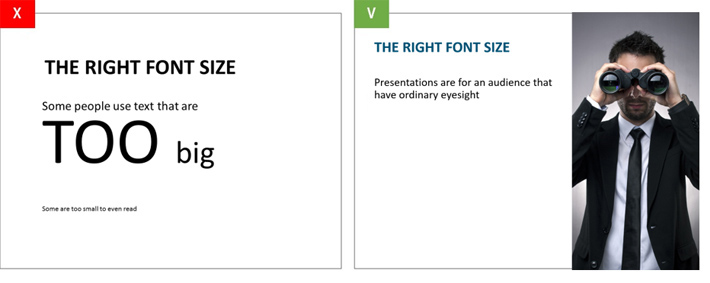
Simple What Font Size Is Best For Powerpoint Presentations For Logo Design, To change font size in powerpoint, first, select the text. The font type and the font size.
Hence, it can be used for both headings or text. Then, click on the “font size dropdown” option from the “font” group on the “home” tab in powerpoint. The next best font for powerpoint is another creation of gleb guralnyk. It’s perfect for designing powerpoint slides for business and professional presentations.
Last Minute PowerPoint problems that nobody wants Hence, it can be used for both headings or text.
What is the best font and font size for powerpoint presentation? The style is both geometric while featuring bubbly and. Best sans serif fonts for powerpoint presentations futura. What is a good font size for powerpoint presentations?
Hence, it can be used for both headings or text. Addington is a family of serif fonts that feature a very formal design. Best sans serif fonts for powerpoint presentations futura. ( image source) oozing style, this elegant font is ideal for powerpoint presentations. Font Types and Sizes in PowerPoint 2016 for Windows.
Vintage look and unusual serifs are the latest trends in designer typography. Whole books have been written about typography, so asking someone to answer this on quora is an impossible task. The font should be large enough to be easily read from the very back. The font comes with 7 different font weights including roman and italic sets. Choosing the Best Font for PowerPoint 10 Tips & Examples Design Shack.
As someone who used to charge a lot of. Whiskey label + design elements font. Roboto is a versatile font with different purposes. The first one is easy: Some Data on the Current Use of PowerPoint Font Sizes Die Computermaler.
Vintage look and unusual serifs are the latest trends in designer typography. Check embed fonts in the file in the preserve fidelity when sharing this presentation: Popular serifs are times new roman, century, bookman, lucida, garamond, and more. Many powerpoint users will ask, what is a good font size for powerpoint presentations? in reality, you should vary your font size based on the content that you're presenting. PPT Minimum Font Size Slide PowerPoint Presentation, free download.
However, you are better off choosing standard fonts, such as calibri, tahoma, gill sans and garamond, or even times new roman and. When it comes to font, there are two important aspects: Believe outside the slide has a terrific font cheat sheet for a number of various screen dimensions. Six good presentation fonts for your brand to explore. Slide Presentation Guidelines.
As someone who used to charge a lot of. However, you are better off choosing standard fonts, such as calibri, tahoma, gill sans, garamond, or even times new roman or helvetica. It’s perfect for designing powerpoint slides for business and professional presentations. The font includes basic punctuation, an illustration of icarus, frames, texture, and ribbons. What are the layout and the suggested font sizes for header.
There are several fonts you can use for your presentation. If bodoni fonts are just that bit too extreme, try bell mt instead. Popular serifs are times new roman, century, bookman, lucida, garamond, and more. Here are seven tips to help you find the best powerpoint fonts for your presentation: Best Resolution For PowerPoint Presentations • PresentationPoint.
The font comes with 7 different font weights including roman and italic sets. If bodoni fonts are just that bit too extreme, try bell mt instead. In the video below, our company founder and prezi expert russell, gives his thoughts on choosing the right font size. Many powerpoint users will ask, what is a good font size for powerpoint presentations? in reality, you should vary your font size based on the content that you're presenting. Font Size for Powerpoint Presentation Powerpoint Tip YouTube.
As someone who used to charge a lot of. The document should utilize recommended fonts, e.g., palatino, georgia, verdana, tahoma, arial, and helvetica. Click on file and then options. To change font size in powerpoint, first, select the text. Font Types and Sizes in PowerPoint 2016 for Mac.
Whiskey font has a vintage style. Best sans serif fonts for powerpoint presentations futura. They include arial, calibri, helvetica, verdana, lucida sans, tahoma, and century gothic. These fonts are more common and generally come installed with most programs, plus they look good and are easy to read. Last Minute PowerPoint problems that nobody wants.
The font type and the font size. 7 tips for choosing powerpoint fonts. In this blog we share six good presentation fonts that can take your deck to the next level and wow your audience. The next best font for powerpoint is another creation of gleb guralnyk.